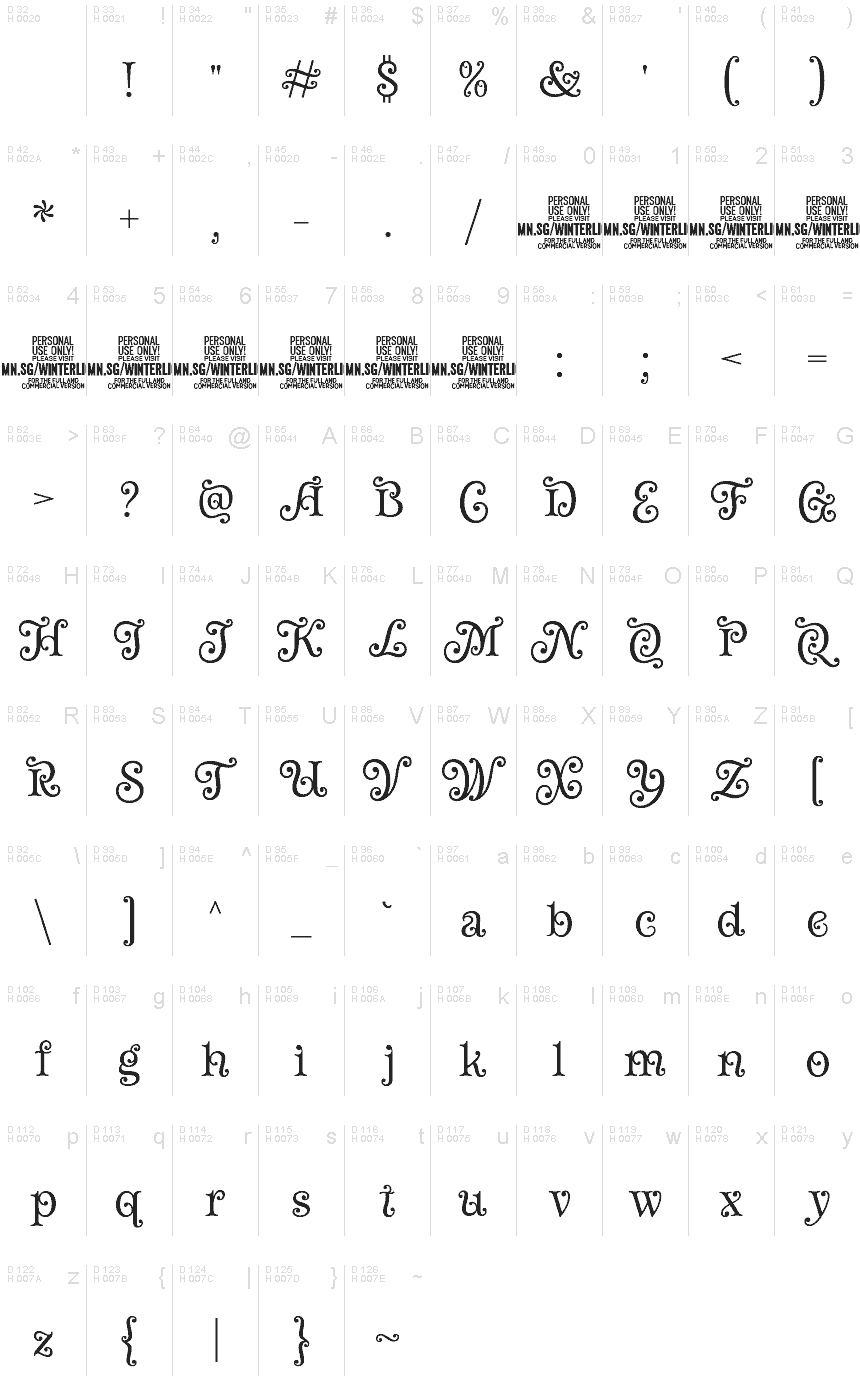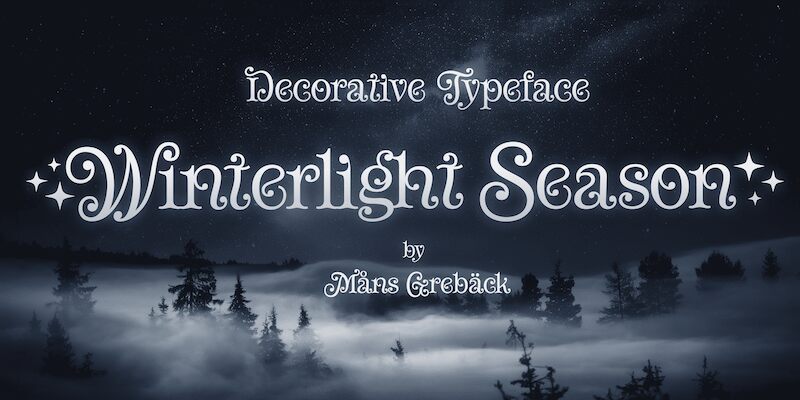
Winterlight Season PERSONAL Regular
Winterlight Season font by Mans Greback captures the enchantment of Christmas with its swirly design. An artistic flair and vintage charm make it suitable for many designs related to this most enchanting holiday. Its intricate letters have ornate decorations, decorative swirls, and elaborate detailing with a whimsical undertone.
Use the percent character % followed by a number to create Christmas symbols.
For example: Secret %37 Santa